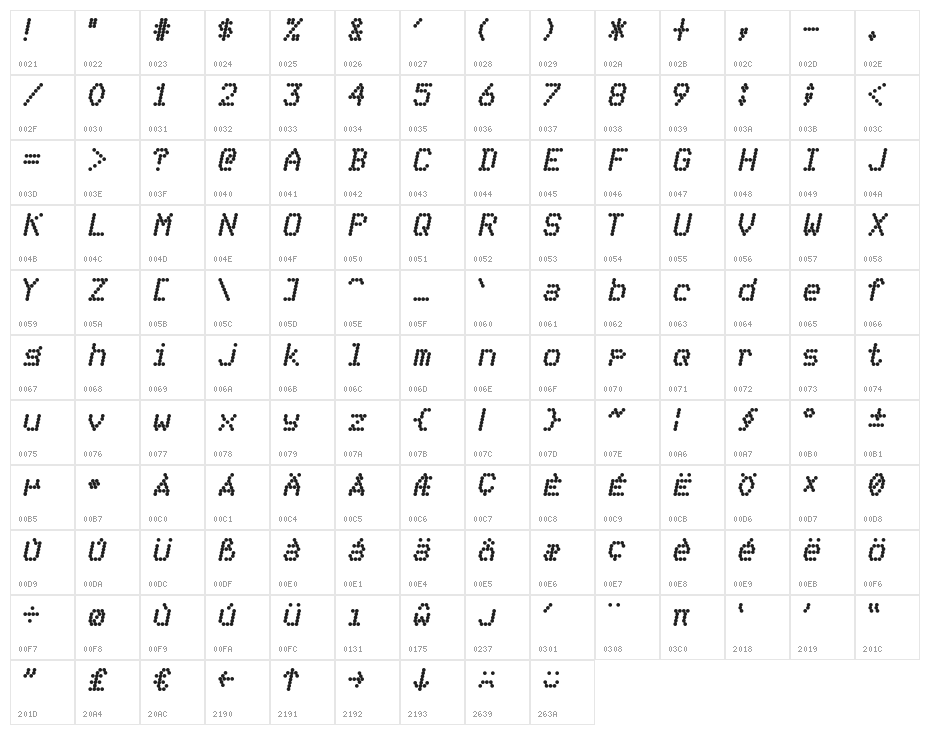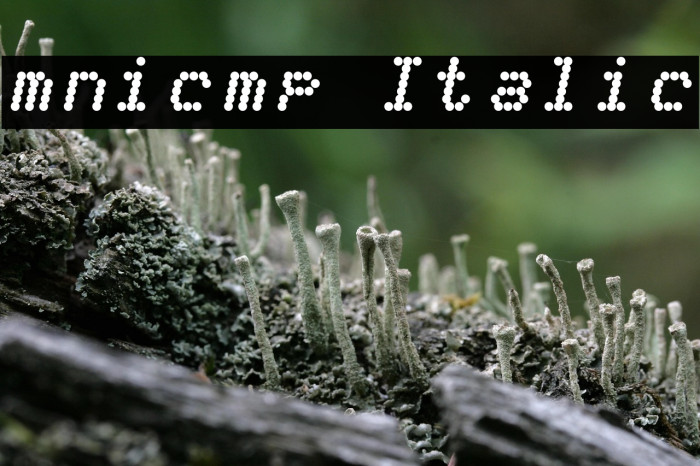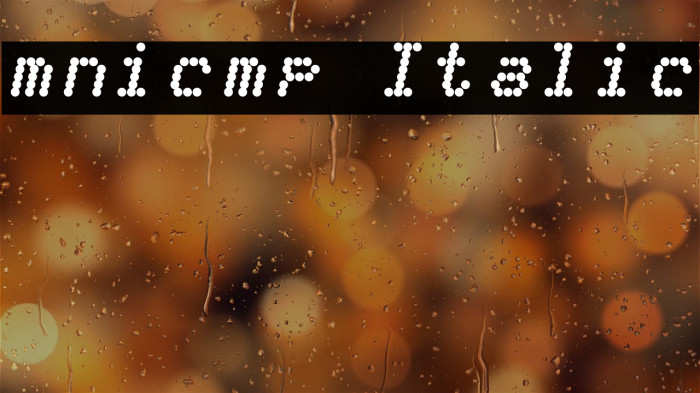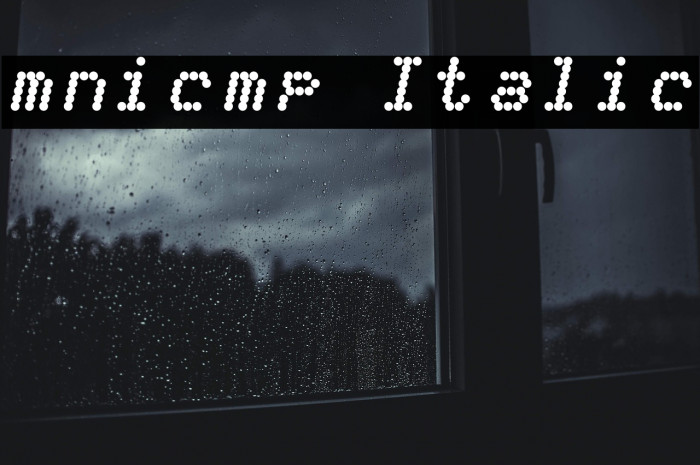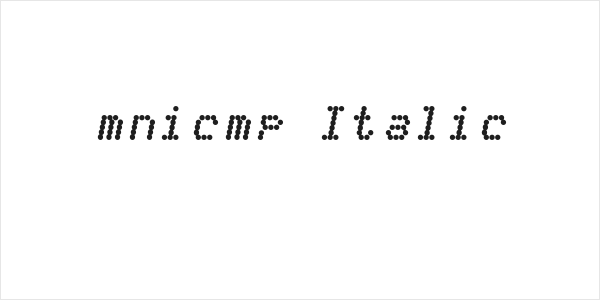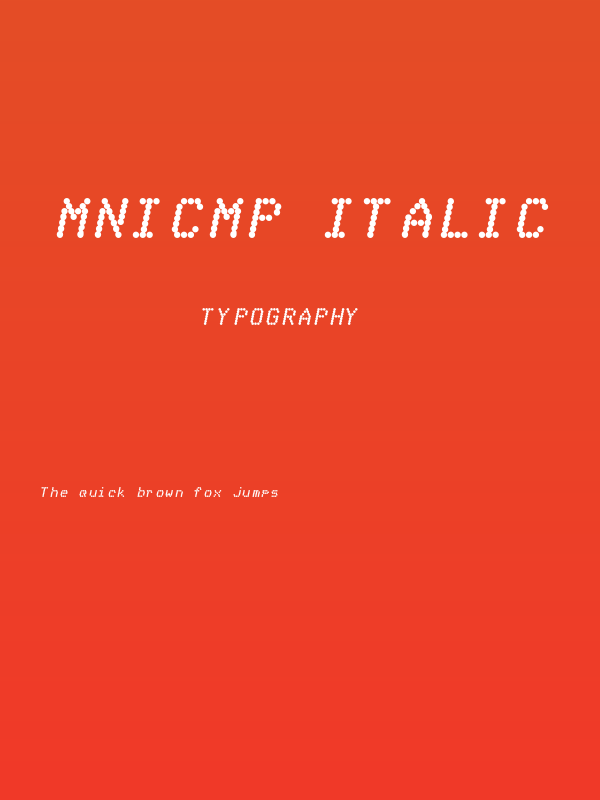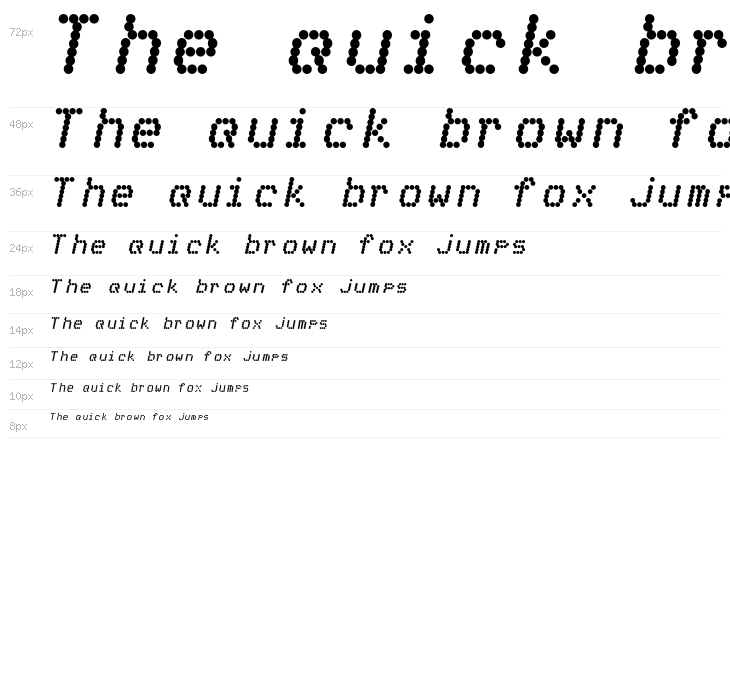
mnicmp Italic Font
mnicmp Italic Description
This font features a unique design composed entirely of small, evenly spaced dots forming each character. The letters are italicized, giving them a dynamic and forward-leaning appearance. The font maintains a consistent dot pattern throughout, creating a cohesive and visually engaging style. Uppercase and lowercase letters are clearly distinguishable, and the numbers follow the same dotted pattern, ensuring uniformity across all characters. Special characters are also included, adhering to the same design principles. This font's playful and modern aesthetic makes it suitable for creative projects.